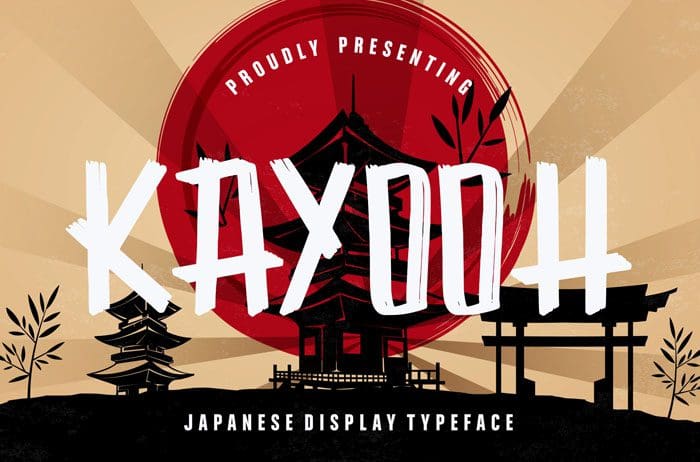
Kayooh Brush Font
Kayooh is a bold Brush Font that has japanese traditional feeling and suit for any japanese events. Kayooh is perfect for branding projects, logo, product designs, label and more. Thanks to Creatype Studio for sharing this font! Take a look at this portfolio for more of his stunning fonts.